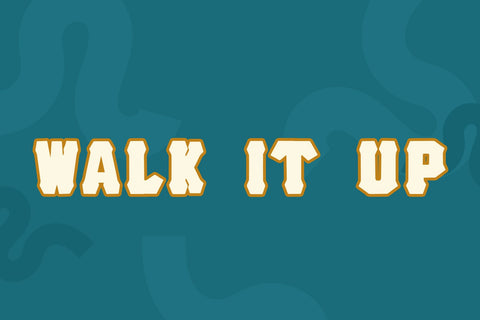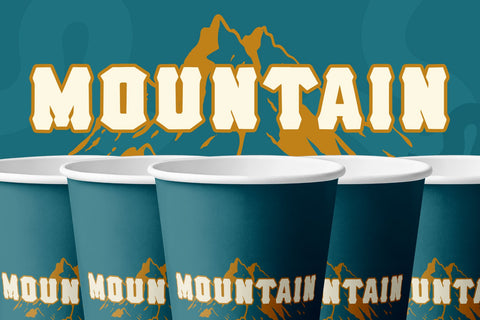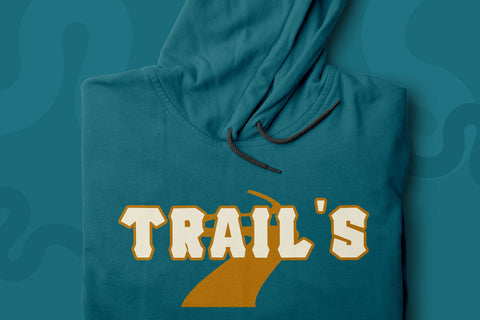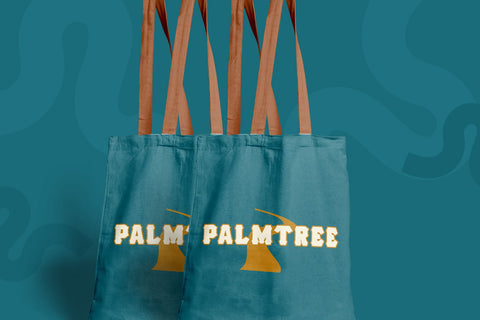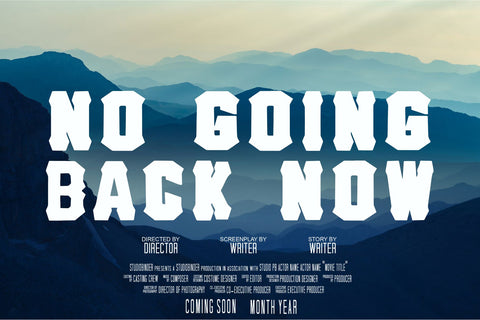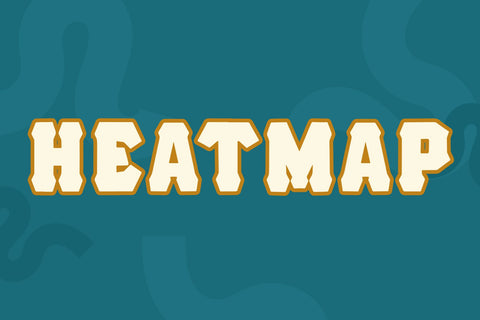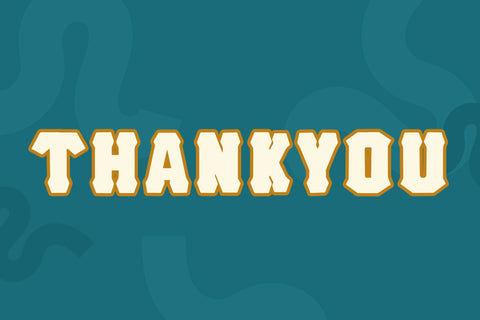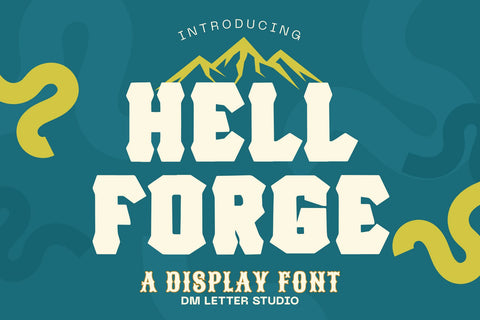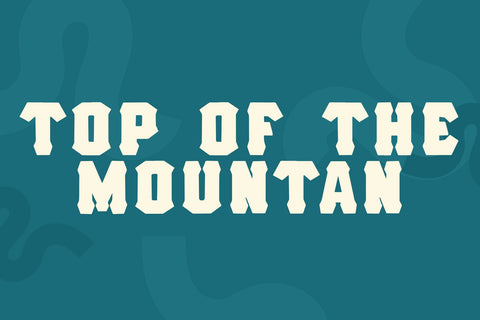
Hell Forge Font
Meet Hell Forge Font
Hell Forge Font brings raw, industrial power to your titles. Letters feel heavy, angular, and confident. Edges cut clean like hot steel. Because the shapes stay bold and simple, your words read fast on shirts, patches, thumbnails, and posters. Use it for gaming brands, garage logos, biker merch, metal gigs, and gritty product labels. Moreover, the hell forge font pairs well with neutral sans serifs, so layouts look tough and tidy.
Where the hell forge font shines
Set short phrases, team initials, or product names. Then add outline layers, rivet textures, or soft inner shadows for depth. Since spacing is tuned for headlines, you can build covers, banners, and stickers in minutes. As a result, launch full collections for apparel, tools, and events without heavy tweaks. Plus, the blocky forms stay crisp at small sizes, which helps your shop stand out on mobile.
Design tips for Hell Forge Font
Keep copy short and let the letterforms lead.
Add double strokes or plate borders for a badge feel.
Use mild grain, oil smudges, or brushed-metal overlays.
Pair headlines set in the hell forge font with a clean geometric sans for specs and pricing.
Alternates for key letters (select glyphs)
Why creators choose the hell forge font
You want a typeface that hits hard, builds fast, and sells. Hell Forge delivers. It grabs attention in crowded feeds, keeps production simple, and scales from stickers to stage backdrops without losing edge.